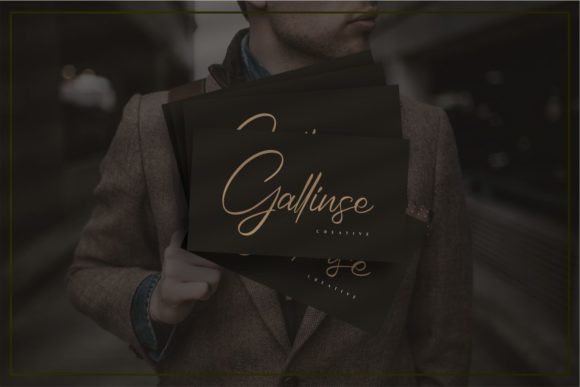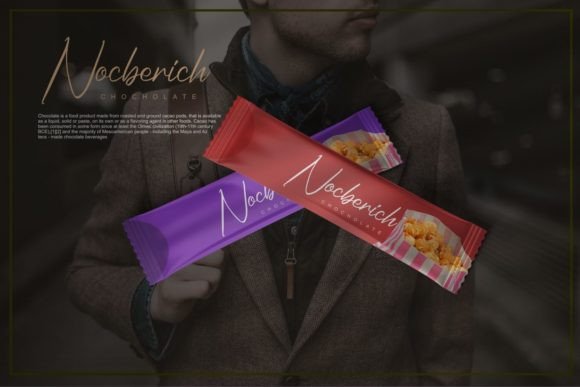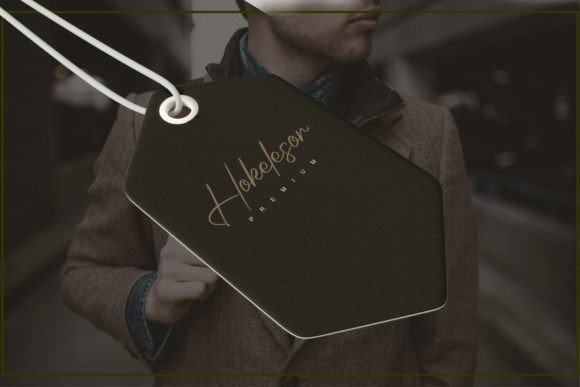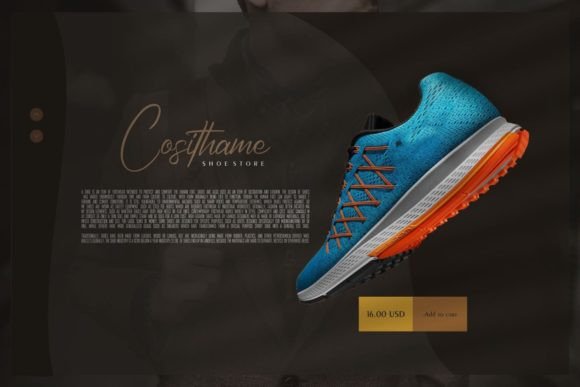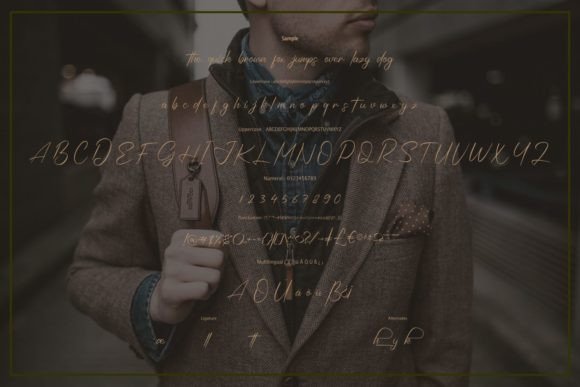
Introducing Jhony Kalley, an exquisite handwritten font masterfully designed to become a true favorite in your creative toolkit. This font maintains its classy calligraphic influences while exuding a contemporary and fresh feel. Fall in love with Jhony Kalley and bring your projects to the highest levels of elegance and style.
The combination of classy calligraphic elements with a contemporary twist sets Jhony Kalley apart. Its refined strokes and well-crafted characters make it a versatile choice for various design applications.
Imagine Jhony Kalley enhancing wedding invitations, where its exquisite script adds a touch of timeless romance. Picture it gracing branding materials, giving your logo and promotional materials a classy and sophisticated edge. Envision it becoming the signature font for your creative projects, adding a level of elegance that captivates your audience.
Jhony Kalley is not just a font; it’s a design statement that elevates your work to new heights. Let it be the go-to choice when you want to infuse your projects with a perfect blend of class and contemporary flair.
Add Jhony Kalley to your font collection and experience how it becomes an indispensable asset in creating visually stunning and sophisticated designs. Let it be the font that elevates your creative endeavors to the pinnacle of elegance!